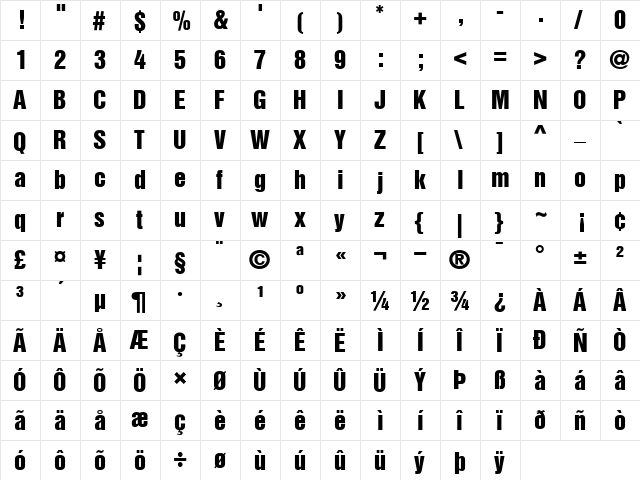
HelveticaInserat Roman
Design Context for HelveticaInserat Typeface
HelveticaInserat offers clean, dependable letterforms without strong stylistic allegiance, making it a practical choice for designers who need flexibility.
Pro Tip: Pair HelveticaInserat with a font of contrasting weight or personality to build a more expressive typographic hierarchy.